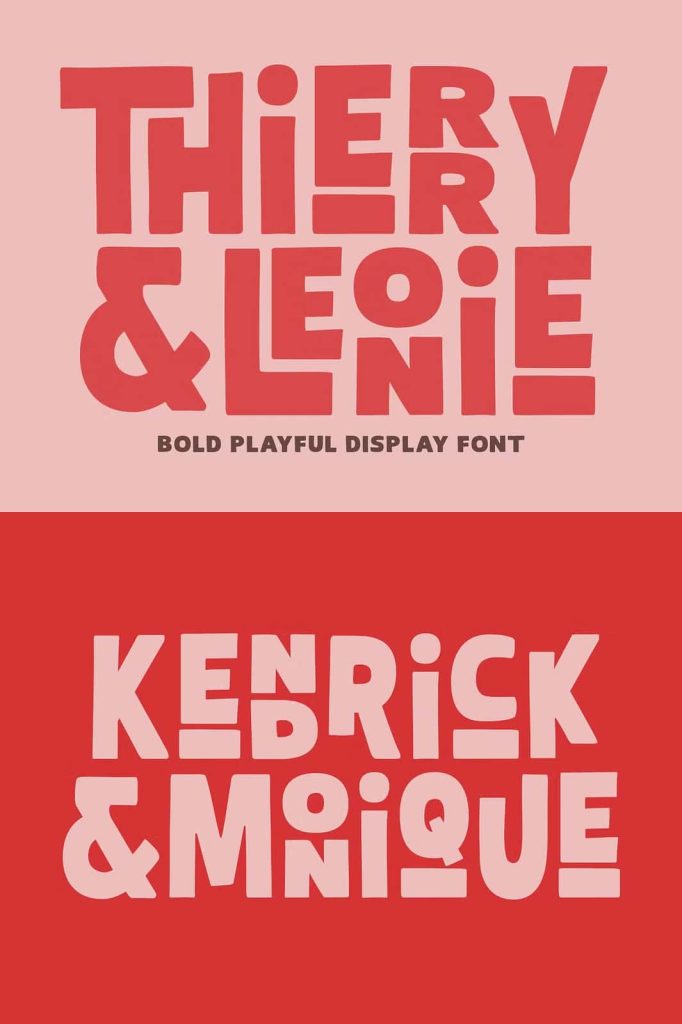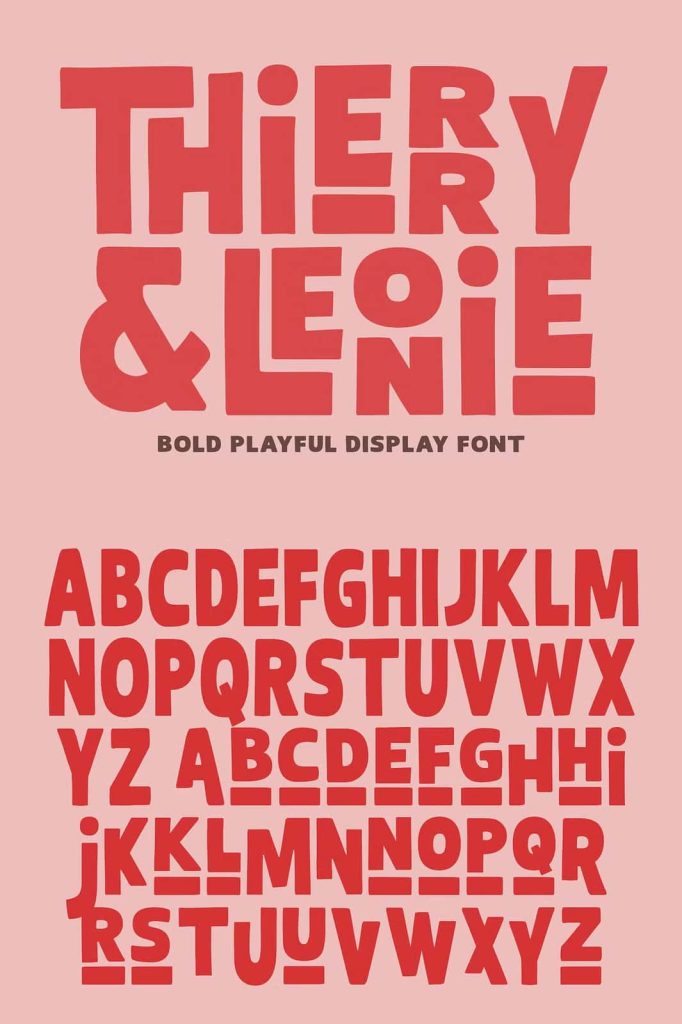
Thierry Leonie Display Font: Bold, Playful, and Full of Personality
Thierry Leonie stands out as a lively display font that brings energy and charm into every design it touches. This typeface combines bold structure with a condensed form, allowing designers to create strong visual impact without sacrificing space or clarity. Its playful personality immediately captures attention, making it an excellent choice for creatives who want their work to feel approachable, expressive, and memorable.
With its friendly sans-serif style and thoughtfully crafted letterforms, Thierry Leonie transforms ordinary text into engaging visual elements. It invites designers to experiment, explore, and push creative boundaries while maintaining readability and balance.
A Playful Design That Sparks Creativity
Thierry Leonie embraces a cheerful and dynamic design approach. Each character carries a sense of movement and friendliness, encouraging a more human and relatable tone in your typography. The font does not feel rigid or overly formal. Instead, it communicates warmth and creativity, making it ideal for projects that aim to connect with audiences on an emotional level.
Designers can use Thierry Leonie to inject personality into their work. Whether you want to create a fun brand identity or a vibrant promotional piece, this font delivers a distinctive voice that feels both modern and inviting.
Bold and Condensed for Maximum Impact
One of the defining features of Thierry Leonie is its bold and condensed structure. This combination allows you to fit more text into limited spaces while still maintaining a strong visual presence. The thick strokes ensure high visibility, making it especially effective for headlines and display purposes.
The condensed width also helps maintain a clean and organized layout. Designers can build compositions that feel balanced without overcrowding the design. This makes Thierry Leonie a practical solution for both print and digital projects where space efficiency matters.
Key Features of Thierry Leonie
- Bold letterforms that create strong visual impact
- Condensed style for efficient use of space
- Friendly sans-serif design that feels approachable
- Rich set of ligatures for enhanced typography
- Playful personality suitable for creative applications
Expressive Ligatures for Unique Typography
Thierry Leonie includes a wide range of ligatures that elevate your typography. These ligatures allow letters to connect in creative and visually pleasing ways, giving your text a more customized and artistic appearance. Instead of relying on standard letter combinations, you can create distinctive typographic styles that stand out.
By using these ligatures strategically, designers can add subtle flair or bold expression depending on the project’s needs. This flexibility makes Thierry Leonie a powerful tool for crafting unique and engaging designs.
Perfect for Eye-Catching Design Projects
Thierry Leonie performs exceptionally well in projects that require attention-grabbing typography. Its boldness and charm make it suitable for a variety of creative uses, helping designers communicate messages clearly while maintaining a strong visual identity.
Headlines and Titles
Use Thierry Leonie to create headlines that immediately draw the viewer’s eye. Its bold structure ensures readability from a distance, while its playful details add character to your content.
Logos and Branding
This font works perfectly for logos that aim to feel friendly, modern, and distinctive. Its condensed form allows for compact logo designs without losing impact, making it ideal for brands that want to stand out in crowded markets.
Posters and Promotional Materials
Thierry Leonie enhances posters, flyers, and marketing visuals by adding energy and personality. It helps transform simple messages into visually compelling statements that engage audiences quickly.
Why Designers Love Thierry Leonie
Designers choose Thierry Leonie because it combines functionality with expressive style. It offers the boldness needed for visibility while maintaining a friendly tone that appeals to a wide audience. This balance makes it versatile across different industries, from creative agencies to lifestyle brands.
The font encourages experimentation while remaining easy to use. Its clear structure supports readability, while its playful elements inspire creativity. This combination allows designers to achieve both aesthetic appeal and practical effectiveness.
Final Thoughts
Thierry Leonie is more than just a display font—it is a creative companion that helps bring ideas to life. Its bold, condensed design, friendly personality, and rich ligature features make it a valuable addition to any designer’s toolkit. Whether you are crafting striking headlines, memorable logos, or engaging promotional materials, Thierry Leonie empowers you to create designs that feel vibrant, expressive, and full of life.